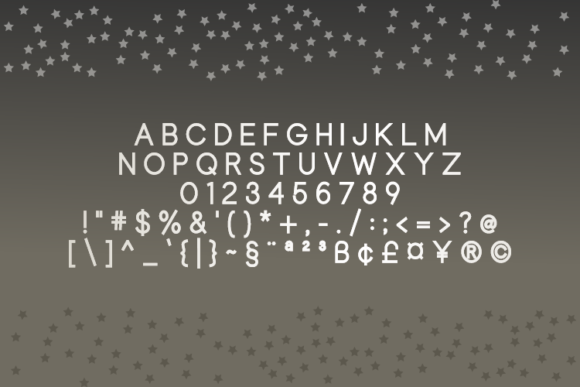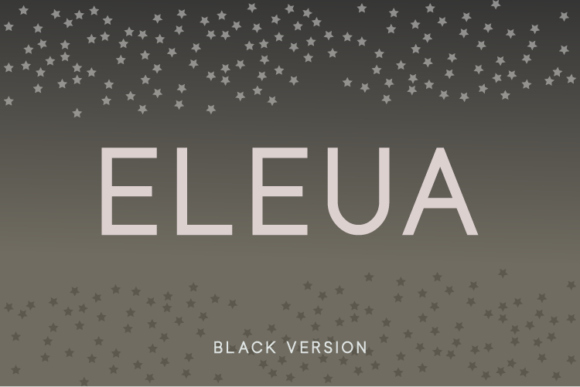
Introducing Eleua Black Font: A Simple yet Powerful Sans Serif Typeface
Are you tired of using overused and cliché fonts in your designs? Look no further than Eleua Black Font, a simple and casual sans serif font that is sure to elevate your work. With its clean feel and beautiful arrangement of letters, Eleua is the perfect choice for both formal and non-formal designs. In this article, we’ll dive into the features and benefits of Eleua, and explore how it can take your designs to the next level.
What is Eleua Black Font?
Eleua is a sans serif font family that consists of 10 weights, allowing you to choose the perfect style to suit your design needs. This font is designed to be versatile and highly legible, making it suitable for a wide range of applications, from digital media to print materials. Whether you’re a designer, crafty DIY enthusiast, or simply someone who appreciates beautiful typography, Eleua is an excellent addition to your font library.
Key Features of Eleua Black Font
- Clean and Simple Design: Eleua’s sans serif design gives it a clean and minimalist look that is perfect for modern designs.
- 10 Weights: With 10 different weights to choose from, you can customize the font to suit your design needs, from light and elegant to bold and attention-grabbing.
- Highly Legible: Eleua’s carefully crafted letterforms ensure that it remains highly legible, even at small font sizes.
- Versatile: Eleua is suitable for a wide range of applications, including digital media, print materials, logos, and more.
Benefits of Using Eleua Black Font
So why choose Eleua Black Font over other fonts? Here are just a few benefits of using this versatile typeface:
- Elegance and Sophistication: Eleua’s clean design and beautiful letter arrangement give it an air of elegance and sophistication, perfect for formal designs.
- Flexibility: With 10 weights to choose from, you can use Eleua in a wide range of designs, from subtle and understated to bold and attention-grabbing.
- Easy to Read: Eleua’s highly legible design ensures that your text is easy to read, making it perfect for body text, headings, and more.
- Unique and Creative: With its simple yet distinctive design, Eleua is sure to help your designs stand out from the crowd.
Who Can Benefit from Eleua Black Font?
Eleua Black Font is perfect for a wide range of designers and crafters, including:
- Graphic Designers: Whether you’re working on a logo, brochure, or website, Eleua is a versatile and elegant font choice.
- Digital Artists: Add a touch of sophistication and elegance to your digital art with Eleua’s clean and simple design.
- Crafty DIY Enthusiasts: Use Eleua to add a professional touch to your handmade crafts, such as signs, cards, and more.
- Web Designers: Eleua’s highly legible design makes it perfect for web design, ensuring that your text is easy to read on a wide range of devices.
In conclusion, Eleua Black Font is a simple yet powerful sans serif typeface that is perfect for designers and crafters looking for a versatile and elegant font. With its clean design, beautiful letter arrangement, and 10 weights to choose from, Eleua is sure to elevate your designs and help you stand out from the crowd. Whether you’re working on a formal or non-formal design, Eleua is an excellent choice.